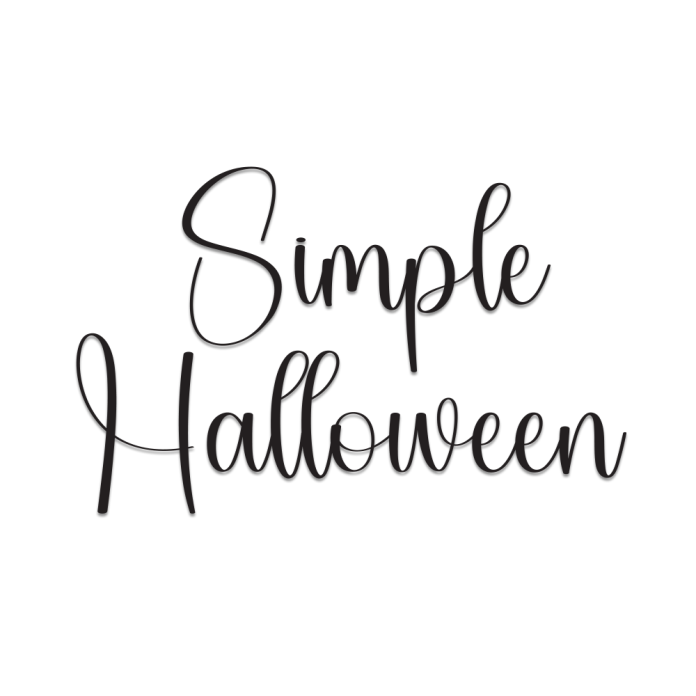
Simple Halloween is a fun and quirky handwriting font with a spooky seasonal charm. Its casual, hand-drawn strokes bring a playful Halloween spirit to your designs without being too scary.
Playful handwritten style with a Halloween vibe
Great for party invitations, posters, and seasonal crafts
Smooth curves and irregular strokes for a natural look
Uppercase & lowercase letters included
Numbers and punctuation supported
Bring your Halloween projects to life with Simple Halloween, the perfect mix of fun and spooky.